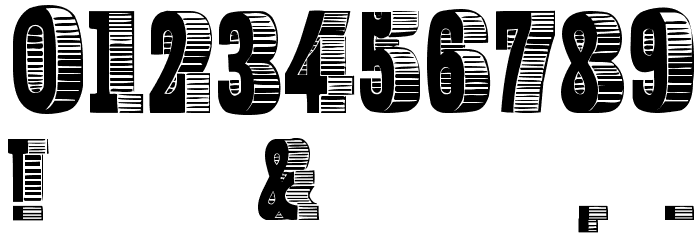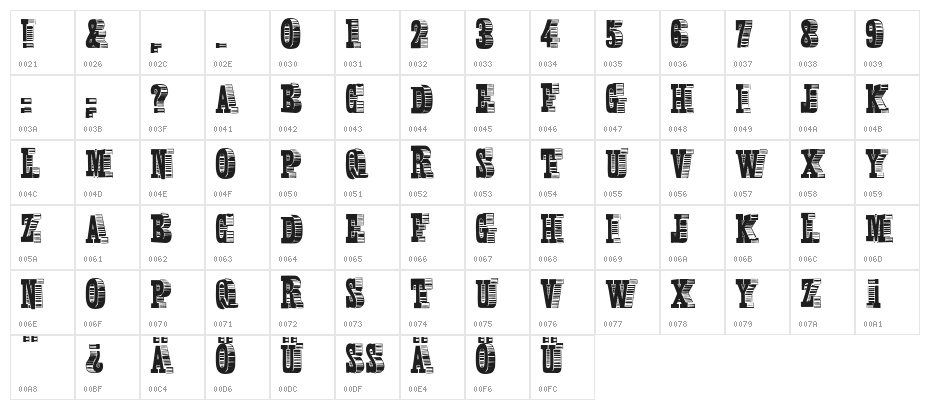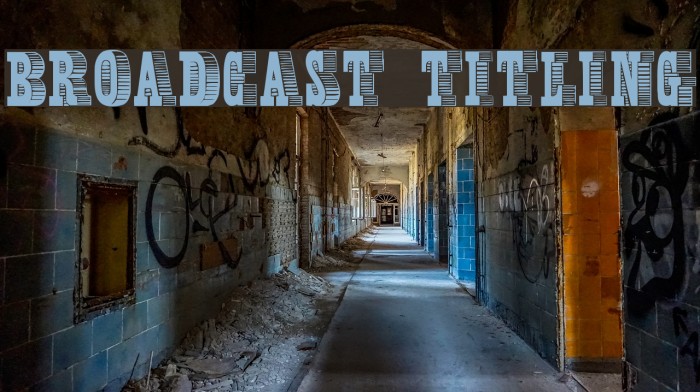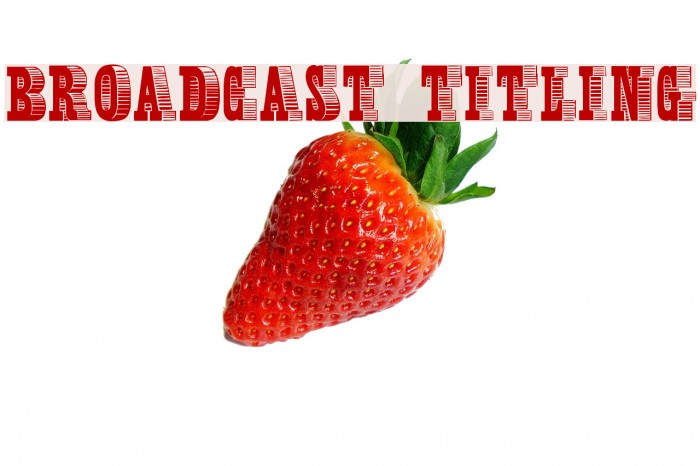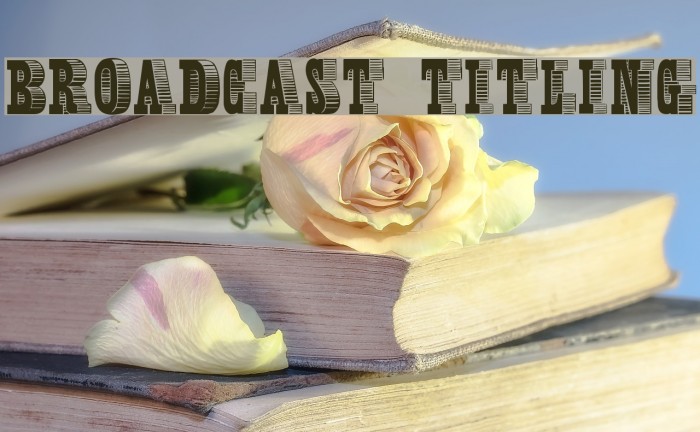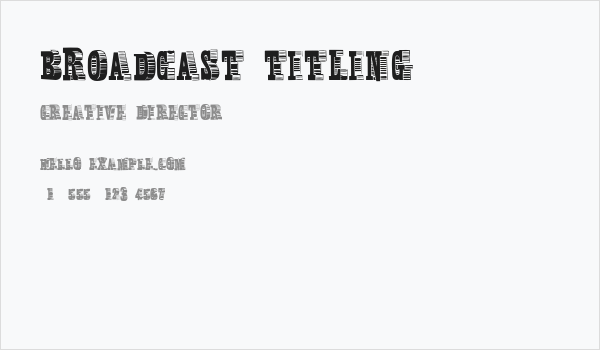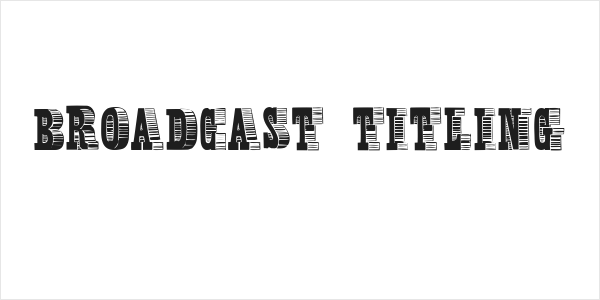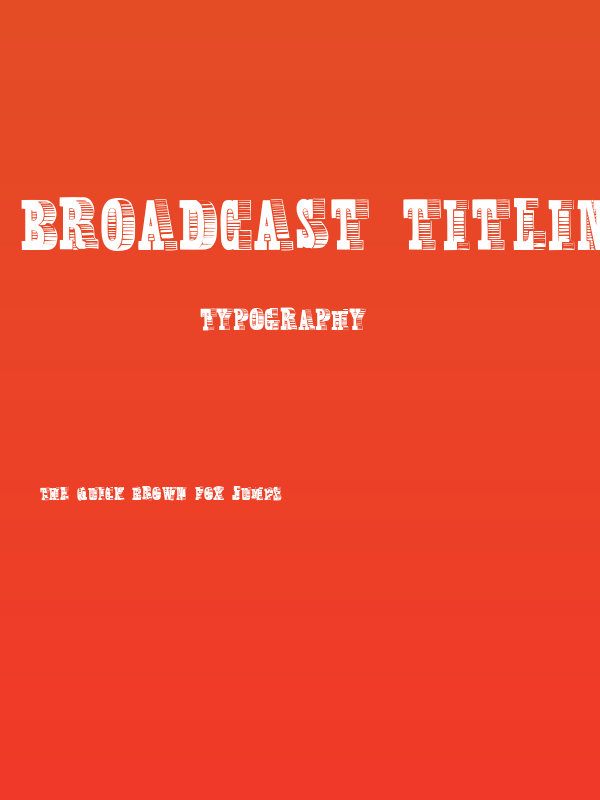
Broadcast Titling Font
This font features a bold, decorative style with a strong presence. The characters are designed with a three-dimensional effect, incorporating horizontal lines that create a sense of depth and movement. The uppercase letters are particularly striking, with a robust and commanding appearance. The numbers and special characters maintain the same bold aesthetic, ensuring consistency across all elements. This font is ideal for making a statement, drawing attention with its unique and eye-catching design.
Proposed ProjectsIdeal for posters, headlines, branding, and any project requiring a bold, attention-grabbing typeface.